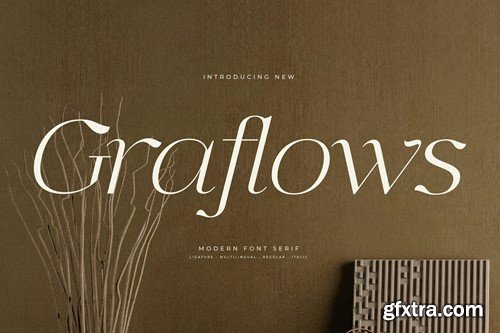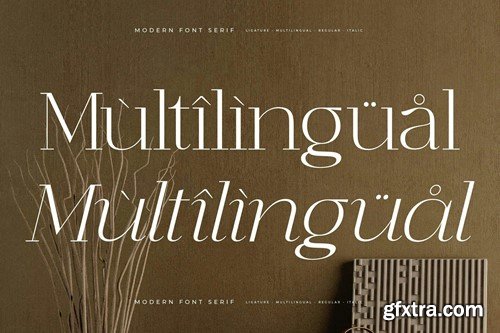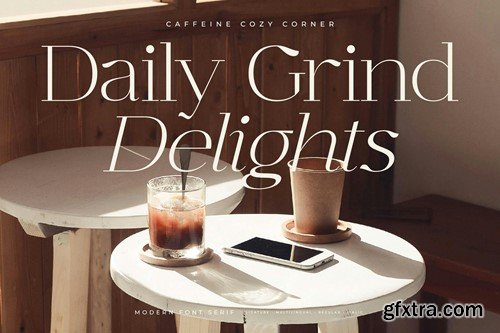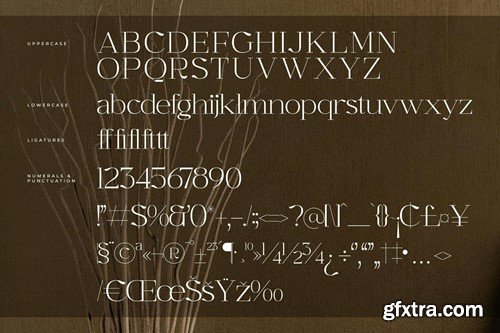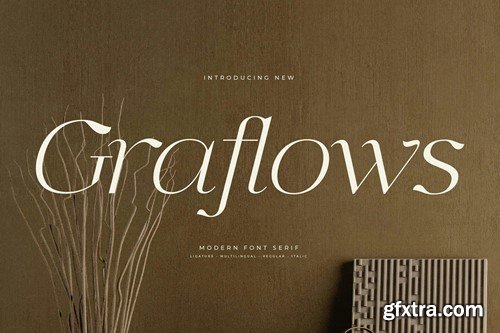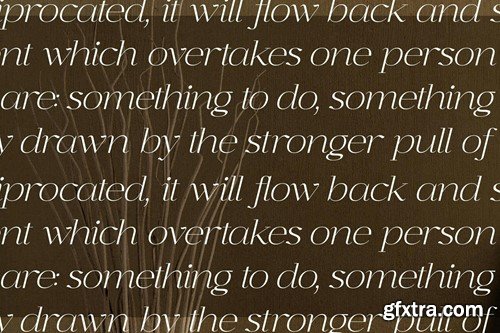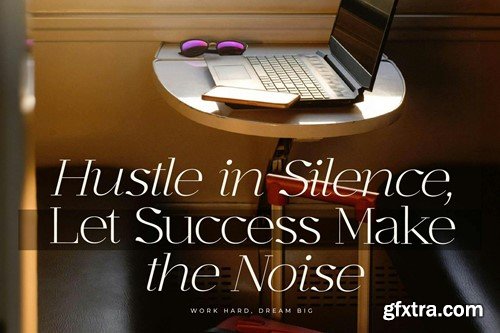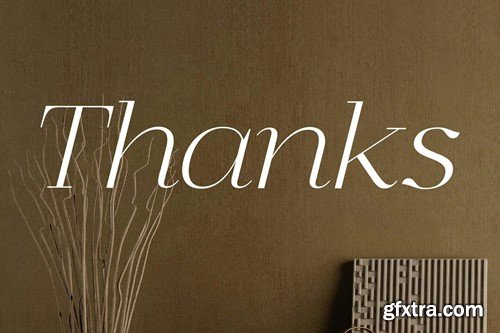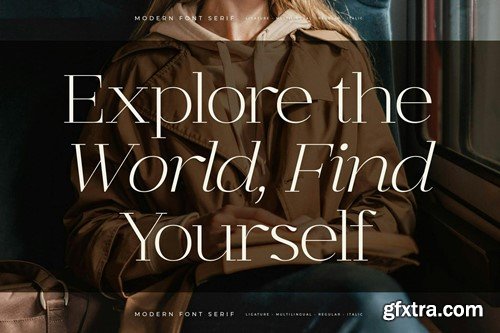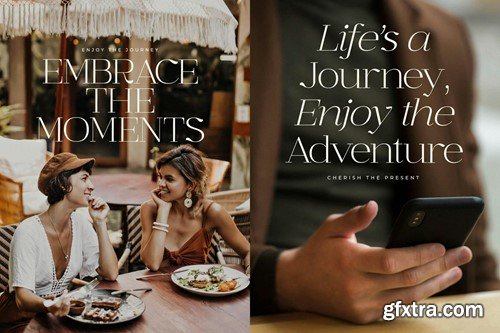
Graflows Modern Serif Font HWQCM6A
Graflows Modern Serif Font
Hi ladies & gentlemen, this is one of our fonts suitable to complement your digital and printed creative products. This font is perfect for posters, social media posts, branding, personal projects, etc.